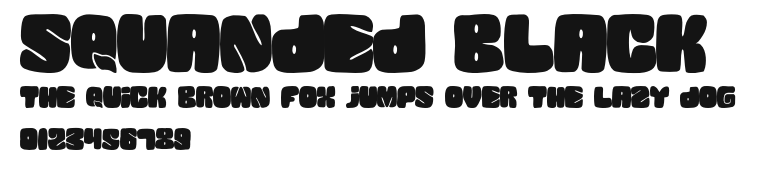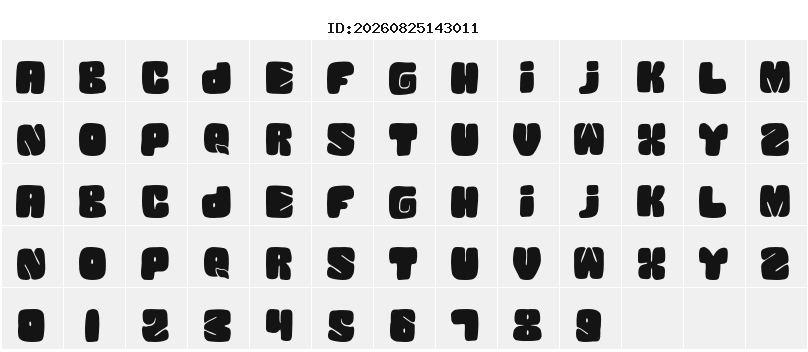
SQUANDED Black Preview
• Font Name: SQUANDED Black
• Designer: YISSUS LETTERS & DRAWINGS
About SQUANDED Black.otf
SQUANDED Black.otf is a modern, elegant sans-serif font designed for ultimate readability and visual harmony. Perfect for branding, headlines, web design, and print materials.